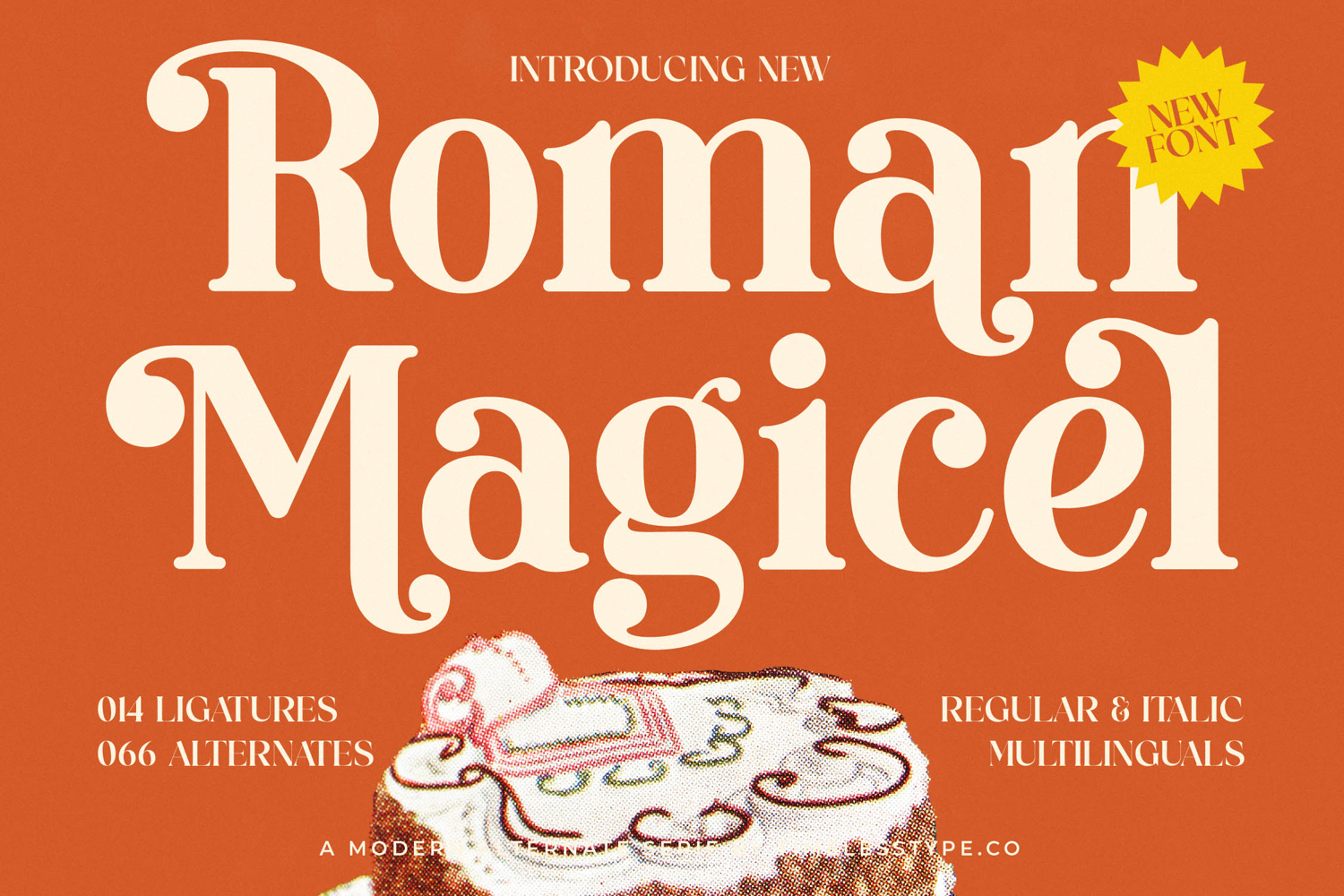
Roman Magicel - Modern Alternate Serif
Unleash unparalleled elegance and distinctive character in your designs. Introducing Font Roman Magicel - Modern Alternate Serif Display, a captivating display serif that masterfully blends classical sophistication with a modern, high-contrast aesthetic. Its gracefully flowing curves and sharp serifs create an instant visual impact, ensuring your headlines and titles command attention with undeniable style. This typeface is meticulously crafted to deliver a truly memorable and luxurious impression.
Experience truly boundless creative potential with every character. With its extensive multilingual support, Font Roman Magicel - Modern Alternate Serif Display adapts seamlessly across global markets, making it incredibly versatile for international projects. Boasting 014 ligatures and an impressive 066 alternates, this font offers an expansive toolkit for designers seeking unique typographic expressions and exceptional flexibility to tailor their message perfectly.
Elevate your brand narrative with a typeface designed for impact and prestige. Font Roman Magicel - Modern Alternate Serif Display is perfectly suited for luxury branding, high-end packaging, sophisticated editorial design, and fashion advertising. It excels in environments where conveying authority, refinement, and modern elegance is paramount, ensuring your visual communications resonate with discerning audiences.
Transform your creative vision into an unforgettable statement. Choose Font Roman Magicel - Modern Alternate Serif Display to infuse your projects with a distinctive charm and a professional allure that sets them apart. Its bold presence and intricate details are engineered to create lasting impressions, making it the ultimate selection for designers who demand excellence and unique style in every detail.